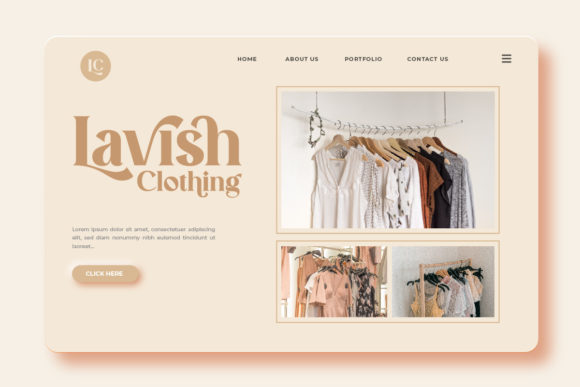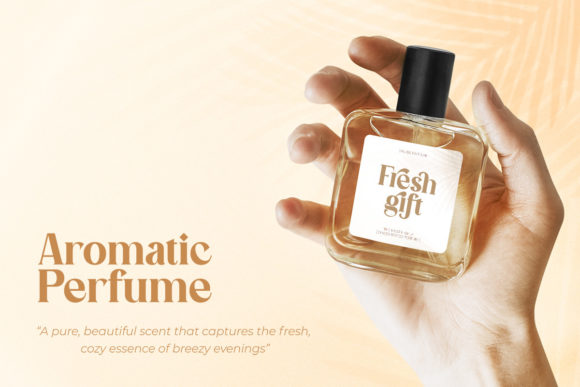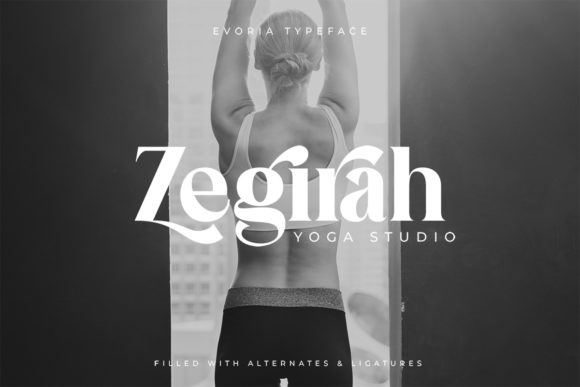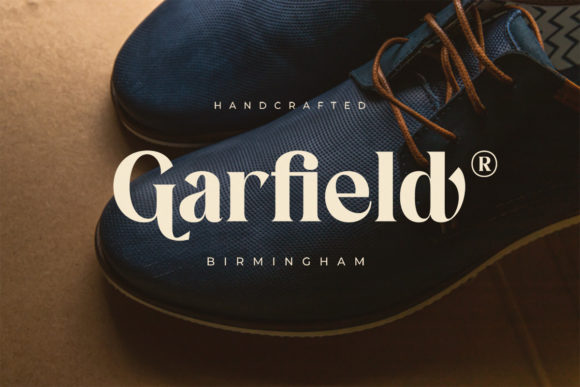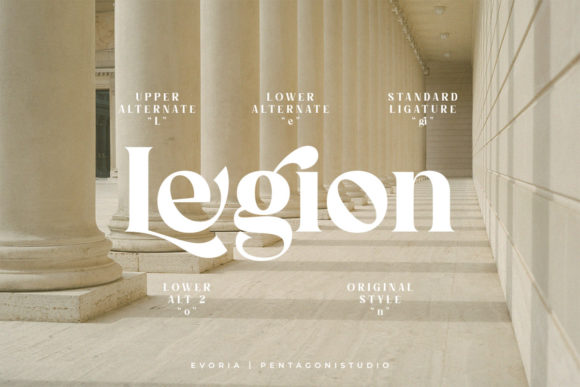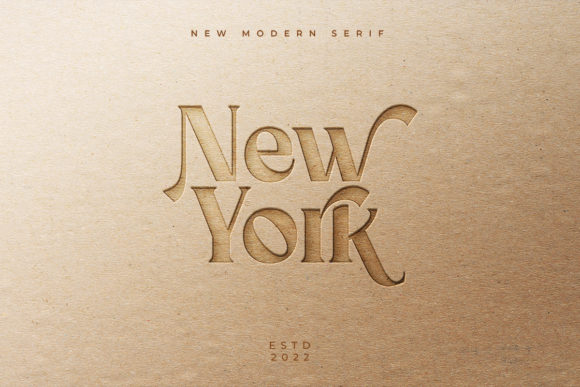
Introducing Evoria Font: Elevate Your Designs with Style and Sophistication
In the world of design, typography plays a crucial role in conveying messages, expressing creativity, and capturing attention. For designers and crafters seeking a font that embodies style, boldness, and versatility, look no further than Evoria Font. This stunning serif font is perfect for a wide range of applications, from product packaging and branding projects to magazine covers, social media graphics, and wedding designs.
What Makes Evoria Font Stand Out?
Evoria Font is a stylish and bold serif font that exudes elegance and sophistication. Its classic design ensures timeless appeal, while its bold strokes command attention and make a lasting impression. Whether you’re working on a luxury brand project, a high-end product package, or a beautiful wedding invitation, Evoria Font is the perfect choice.
Key Features of Evoria Font
- PUA Encoded: Evoria Font is PUA (Private Use Area) encoded, which means you can easily access all the glyphs and swashes. This feature allows for greater flexibility and creativity in your designs, making it easy to add unique touches and personal flair.
- Stylish and Bold: The font’s stylish and bold design makes it perfect for headlines, titles, and emphasis text. Its serif details add a touch of sophistication, elevating your designs to the next level.
- Versatile: Evoria Font is incredibly versatile, suitable for a wide range of design applications, including:
- Product packaging: Stand out on store shelves with eye-catching packaging designs.
- Branding projects: Establish a strong brand identity with a font that exudes style and sophistication.
- Magazine covers: Grab attention with bold, eye-catching headlines and titles.
- Social media graphics: Elevate your social media presence with stunning graphics and typography.
- Wedding designs: Add a touch of elegance and romance to your wedding invitations, programs, and decor.
Evoria Font offers numerous benefits for designers and crafters, including:
- Easy to Use: With its PUA encoding, accessing glyphs and swashes is a breeze, allowing you to focus on creating stunning designs.
- High-Quality Design: Evoria Font is designed with precision and attention to detail, ensuring a high-quality finish that will elevate your designs.
- Time-Saving: With a vast range of glyphs and swashes at your disposal, you can create unique and complex designs without starting from scratch.
Tips for Using Evoria Font
To get the most out of Evoria Font, consider the following tips:
- Experiment with Glyphs and Swashes: Take advantage of the font’s PUA encoding to add unique touches and personal flair to your designs.
- Mix and Match: Combine Evoria Font with other fonts to create striking contrasts and visually appealing designs.
- Play with Size and Color: Don’t be afraid to experiment with different sizes and colors to add depth and emphasis to your designs.
Evoria Font is a stylish and bold serif font that offers a world of creative possibilities for designers and crafters. With its PUA encoding, versatile design, and high-quality finish, it’s the perfect choice for a wide range of applications. Whether you’re working on a luxury brand project or a beautiful wedding invitation, Evoria Font is sure to elevate your designs and leave a lasting impression.